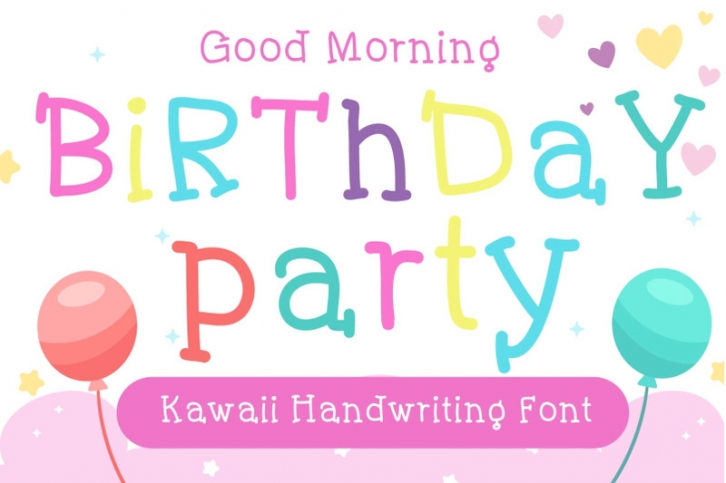
Birthday party Handwritten- cute kid font Kawaii style
Are you looking for cute Handwritten font for your project? Then you have come the right land!!
Birthday party Baby Font- Handwritten Kawaii style. English language only
This Font is perfect for kid greeting card, Print t shirt, fashion artworks or just play around. Festival like Valentine's Day, Kid's Party, wedding!!
FEATURES:
•   Uppercase
•   Lowercase
•   Number
•   Some Punctaution